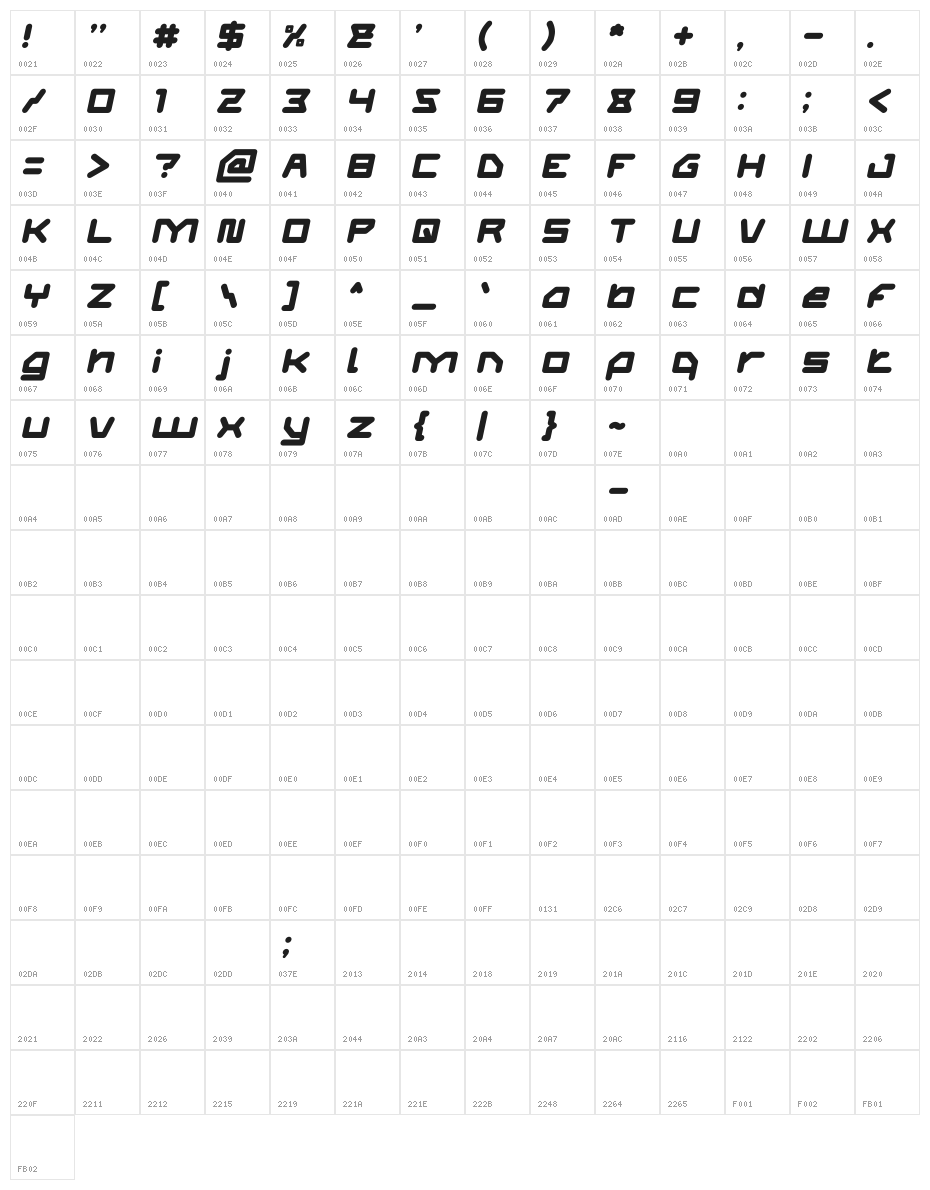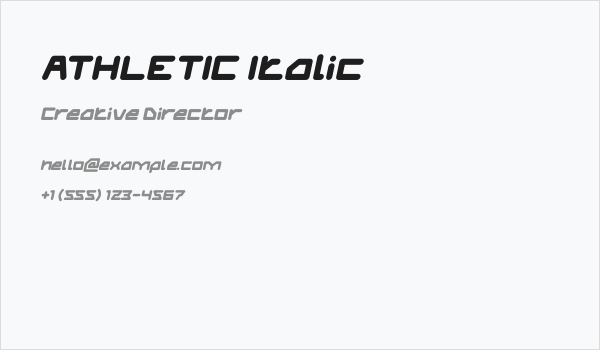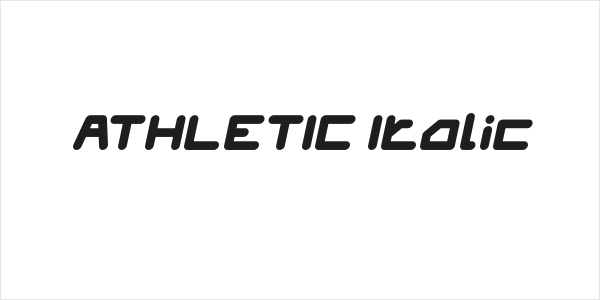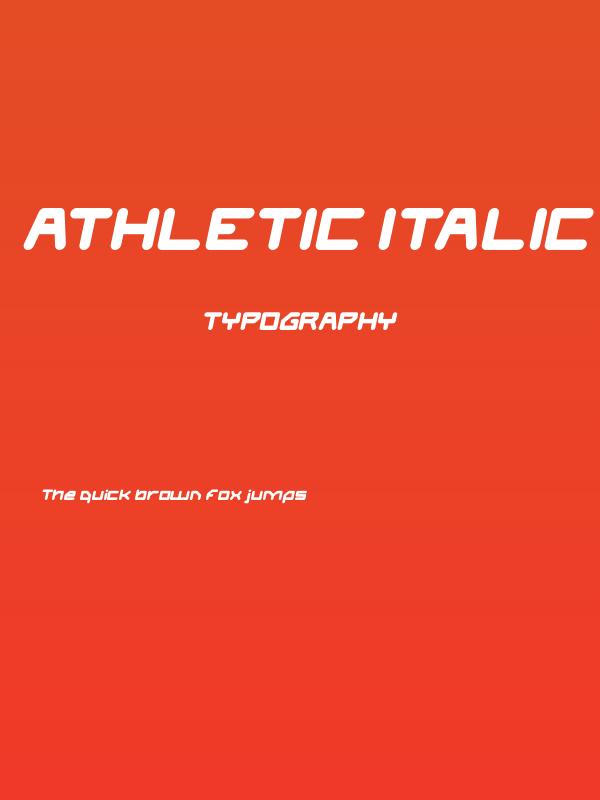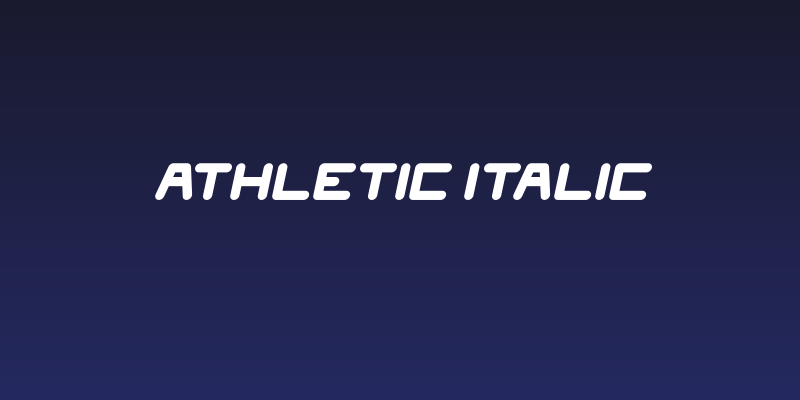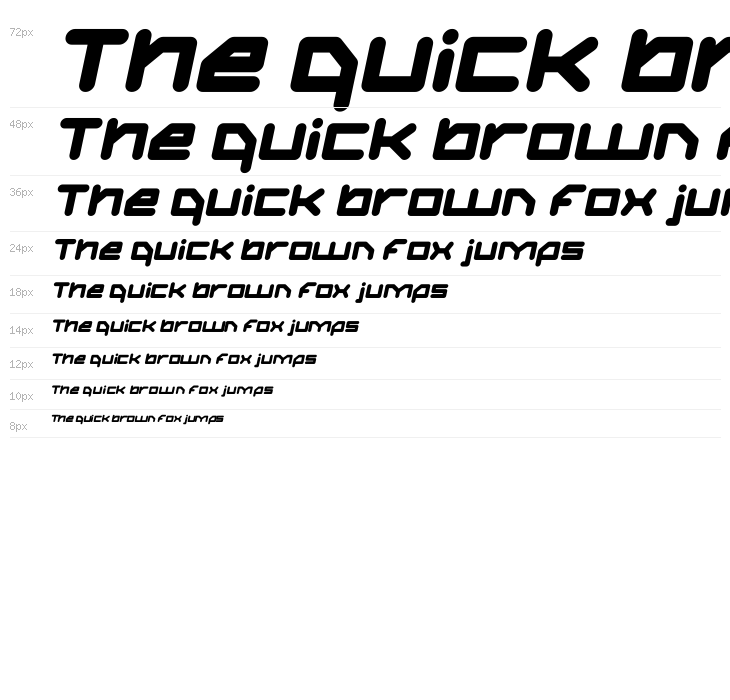
ATHLETIC Italic Font
ATHLETIC Italic Description
This font features a bold, italicized style with a sporty and dynamic appearance. The characters are slightly slanted, giving a sense of motion and energy. The strokes are thick and consistent, with rounded edges that soften the overall look. The uppercase and lowercase letters maintain a uniform width, contributing to a cohesive and streamlined design. The numerals and special characters follow the same aesthetic, ensuring versatility across various applications. This font is well-suited for projects that require a modern and energetic feel.
| Proposed Projects | Ideal for sports branding, athletic apparel, dynamic posters, and energetic advertisements. |